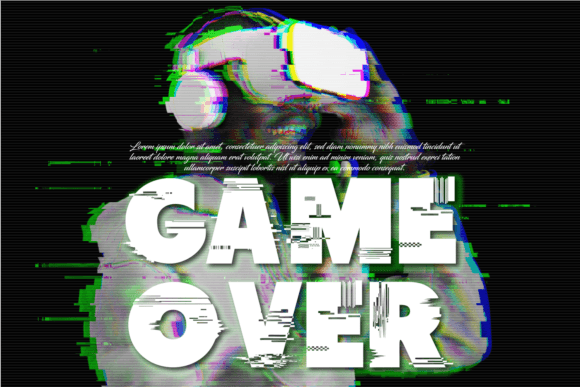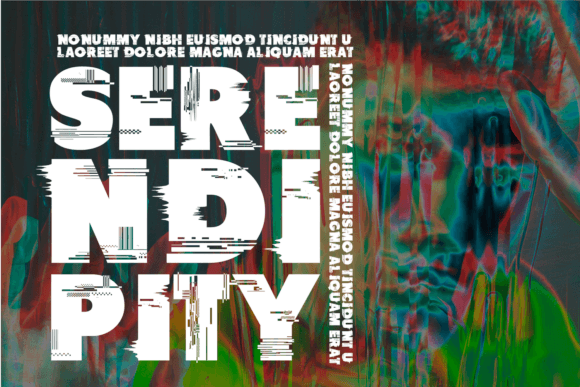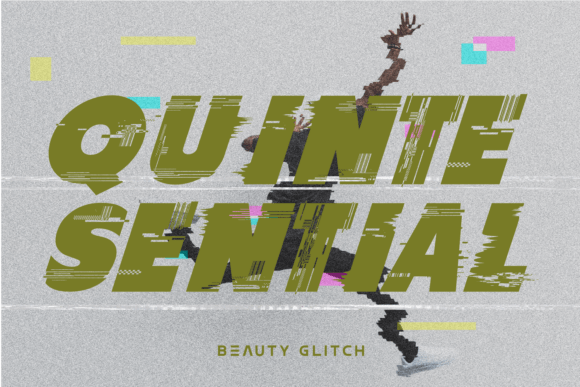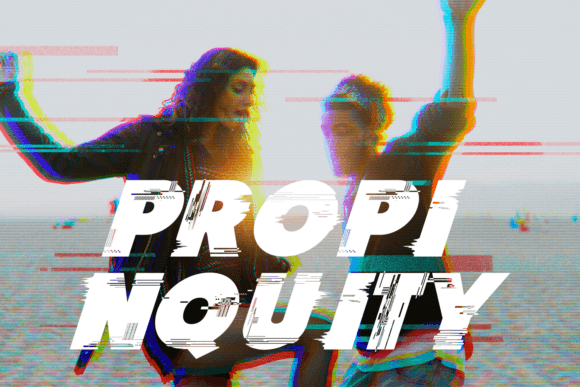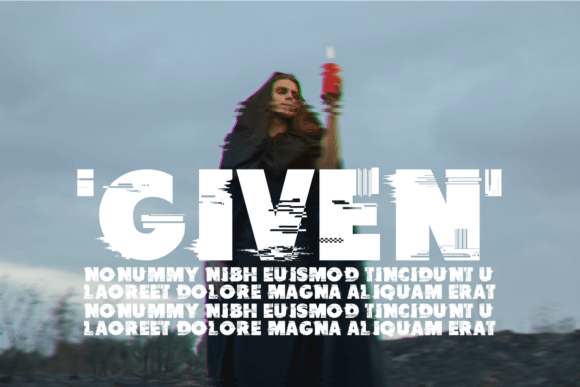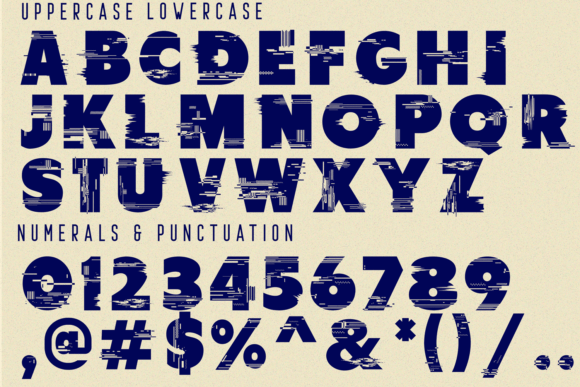
Introducing Beauty Glitch Font: Elevate Your Designs with a Futuristic Twist
In the realm of digital design, fonts play a pivotal role in conveying messages, evoking emotions, and setting the tone for a brand or artwork. Among the myriad of fonts available, the Beauty Glitch Font stands out with its unique blend of modernity and futurism. This sans serif typeface, characterized by its bold and italic styles, brings a glitch effect to the table, making it a perfect fit for designers and crafters looking to add a sci-fi edge to their creations.
What is Beauty Glitch Font?
Beauty Glitch Font is a sans serif typeface that boasts bold and italic styles, presented in the form of horizontal pieces reminiscent of a glitch effect. Each letter has been meticulously distorted in stages, utilizing high-resolution effects to achieve a detailed, glitch-like appearance. This font is not just a simple typeface but an experience, transporting users to a world inspired by science fiction movies and games.
Key Features of Beauty Glitch Font
• Unique Glitch Effect: The font’s glitch effect is its standout feature, achieved through the individual distortion of each sans serif letter. This effect gives the text a dynamic, as-if-it’s-glitching appearance, perfect for capturing the attention of your audience.
• Highly Detailed: Inspired by the visual effects often seen in science fiction, Beauty Glitch Font offers a high level of detail. This makes it suitable for a variety of applications, from large-scale artwork to intricate designs.
• Versatile: The font comes in bold and italic styles, offering flexibility in design. Whether you’re working on a poster, logo, magazine cover, or t-shirt design, this font can adapt to your creative needs.
• Easy to Use: One of the significant advantages of Beauty Glitch Font is that it eliminates the hassle of creating a glitch text effect from scratch. Designers can easily incorporate this font into their projects, saving time and effort.
Beauty Glitch Font’s versatility makes it an excellent choice for a wide range of design projects. Here are some of the areas where this font truly shines:
• Posters: Add a futuristic touch to your posters with a bold statement. The glitch effect ensures your message stands out.
• Logos: Create a memorable brand identity with a logo that incorporates the Beauty Glitch Font. Its uniqueness can help a brand appear more approachable and tech-savvy.
• Magazine and Cover Design: Give your magazine or book cover a modern edge with this font. It’s perfect for themes related to technology, science fiction, or futurism.
• Banners: Whether digital or printed, banners designed with Beauty Glitch Font are sure to capture attention.
• T-Shirts and Merchandise: The font’s bold and eye-catching design makes it ideal for apparel and merchandise, especially for brands or individuals with a penchant for tech and sci-fi.
• Headers and Large-Scale Artwork: For digital artists and designers working on large-scale projects, Beauty Glitch Font offers a way to add detailed, glitch-inspired text effects with ease.
Why Choose Beauty Glitch Font?
In a sea of fonts, Beauty Glitch Font offers something unique—a blend of modern sans serif design with the edginess of a glitch effect. Here are a few reasons why designers and crafters should consider adding this font to their toolkit:
• Unique Aesthetic: It provides a fresh and distinctive look that can set your designs apart.
• Time-Saving: The font’s built-in effects save you the time and technical know-how required to create glitch text manually.
• Versatility: Its range of applications makes it a valuable asset for various projects.
Font Name Beauty Glitch Font
Author 177Studio
Beauty Glitch Font is more than just a typeface; it’s a design statement. With its bold and italic styles, detailed glitch effects, and inspiration from science fiction, it offers a fresh perspective for designers and crafters. Whether you’re looking to add a futuristic touch to your posters, logos, magazine covers, or large-scale artwork, this font provides an easy and effective solution. Elevate your designs with a touch of futurism and make a lasting impression on your audience with Beauty Glitch Font.